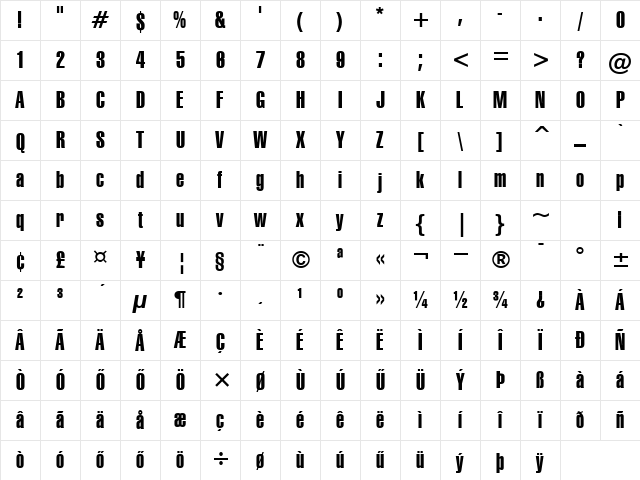
H_Swiss 911 Extra Compressed BT Regular
Design Context for H_Swiss 911 Extra Compressed BT
H_Swiss 911 Extra Compressed BT is a composed and adaptable typeface that performs quietly and consistently across a wide range of design contexts.
Pro Tip: Use H_Swiss 911 Extra Compressed BT in both headline and body roles to test its range before committing to a single application.